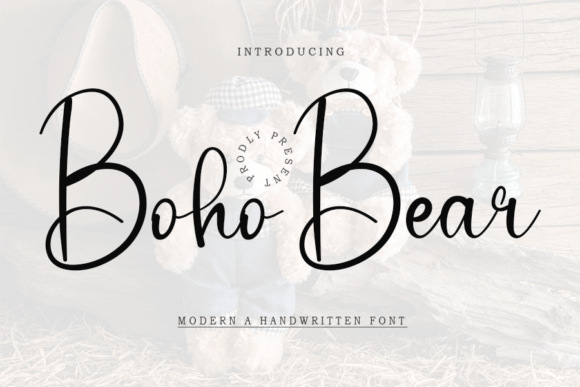
The Boho Bear Font: A Fun and Friendly Companion for Your Creative Projects
I’ll never forget the time I was working on a craft project, pouring my heart and soul into a handmade card for a friend’s birthday. I had all the materials ready – colorful papers, glue, scissors, and a beautiful design in mind. But as I sat there, staring at my computer screen, I realized I was stuck. The font I was using just wasn’t doing justice to my creative vision. The letters looked stiff, and the overall feel was too formal for the playful design I had in mind. That’s when I stumbled upon the Boho Bear font, and it instantly became my go-to companion for that project and many more since then.
An Honest Review of Boho Bear Font
The Boho Bear font has been a game-changer for me, and I’m excited to share my honest review with you. Here’s what I love about it:
- ✨ Fun and Friendly Vibe: Boho Bear has a playful, carefree feel that’s perfect for crafts, digital designs, and greeting cards.
- ✅ Highly Versatile: This font can be used for a wide range of projects, from formal presentations to casual social media posts.
- 💫 Easy to Read: Despite its playful nature, Boho Bear is surprisingly easy to read, even at smaller font sizes.
- 🎨 Great for Creative Projects: The font’s hand-drawn feel makes it perfect for creative projects like handmade cards, invitations, and DIY crafts.
Of course, no font is perfect, and Boho Bear has a few quirks:
- 🤔 Limited Formality: While Boho Bear is great for casual projects, it may not be the best choice for formal or professional designs.
- ⚠️ Some Letter Combinations: A few letter combinations, like “fi” or “fl,” may not look perfect, but this is a minor issue that doesn’t detract from the overall charm of the font.
The Backstory of Boho Bear Font
The Boho Bear font was designed with the intention of creating a fun, friendly, and approachable typeface. The designer, inspired by the carefree spirit of bohemian culture, aimed to craft a font that would bring a touch of whimsy and personality to any design project. With its hand-drawn feel and playful vibe, Boho Bear has become a beloved font among designers, crafters, and creative hobbyists.
| What makes Boho Bear font unique? | Boho Bear’s hand-drawn feel, playful vibe, and friendly personality set it apart from other fonts. |
| Is Boho Bear font suitable for digital designs? | Absolutely! Boho Bear font is optimized for digital use and looks great on screens. |
| Can I use Boho Bear font for print projects? | Yes, Boho Bear font is also suitable for print projects, such as brochures, posters, and business cards. |